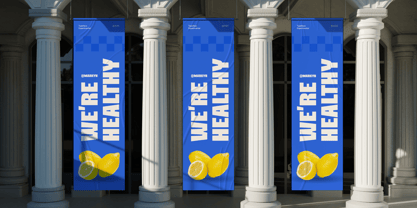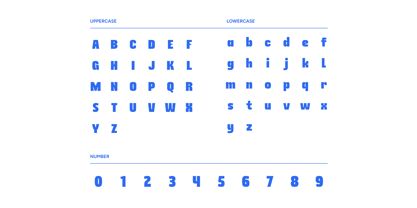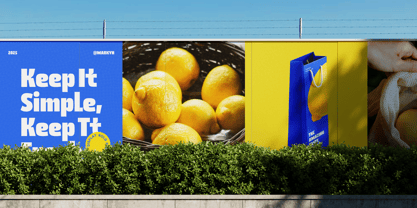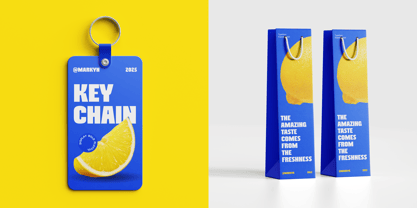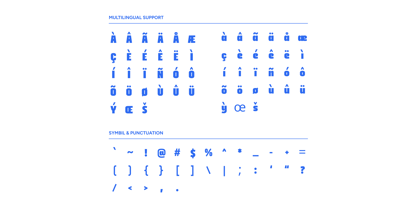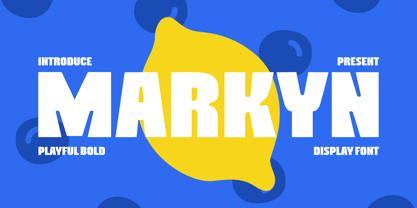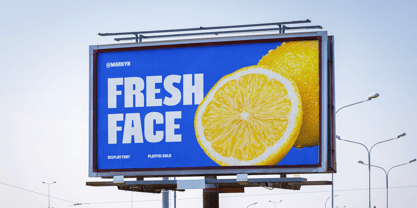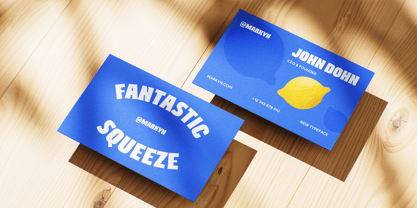
Markyn
by Slidehack
The Markyn Font Family was designed by Excellent Ritma Florendia and published by Slidehack. Markyn contains 1 styles. More about this family
Markyn is a fun and bold display font designed to grab attention with thick, confident strokes and quirky letter shapes. Perfect for headlines, branding, packaging, posters, and social media graphics, it delivers a modern and playful feel. Markyn adds energy and personality to every design, making it ideal for bold creative projects that aim to stand out across digital and print media.
Designers: Excellent Ritma Florendia
Foundry: Slidehack